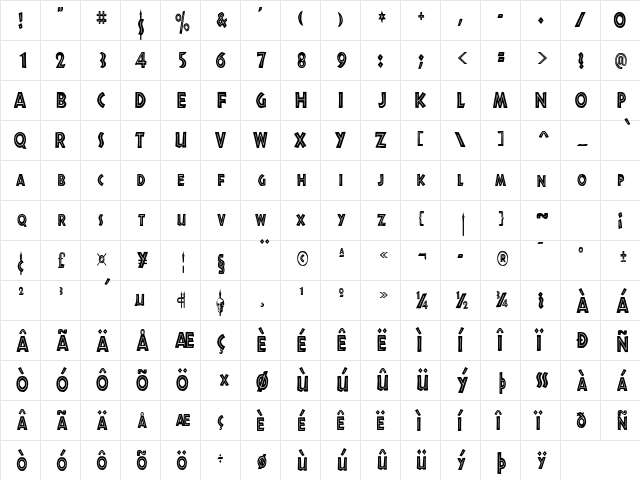
ShakazuluCondensed Regular
Design Context for ShakazuluCondensed Typeface
ShakazuluCondensed is a composed and adaptable typeface that performs quietly and consistently across a wide range of design contexts. The condensed width makes it efficient for tight spaces without sacrificing legibility.